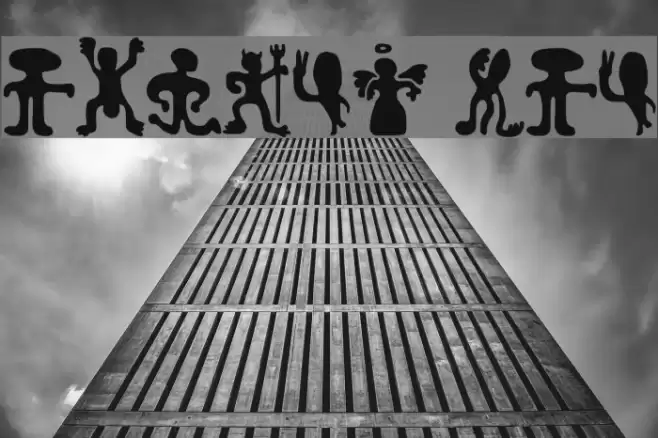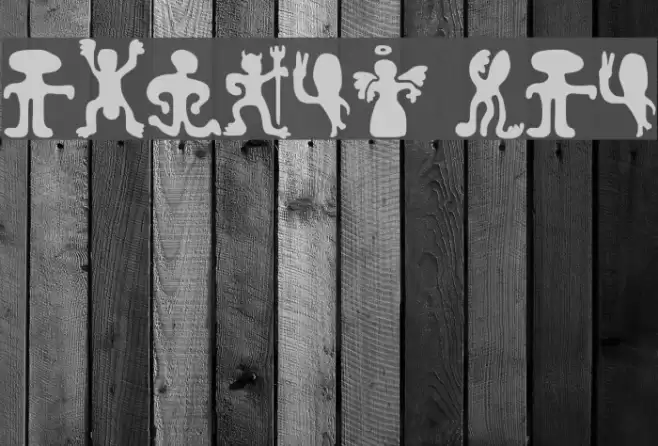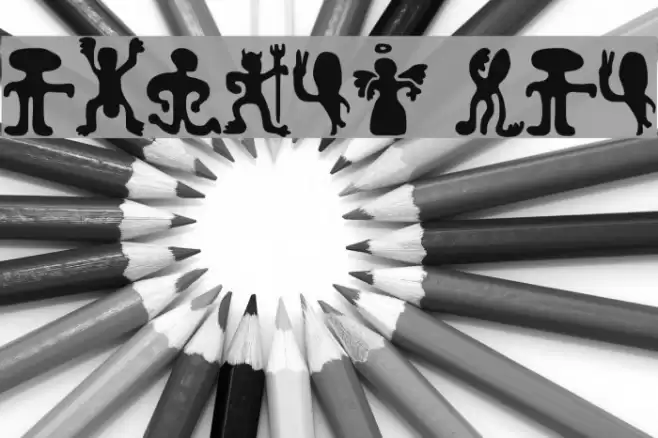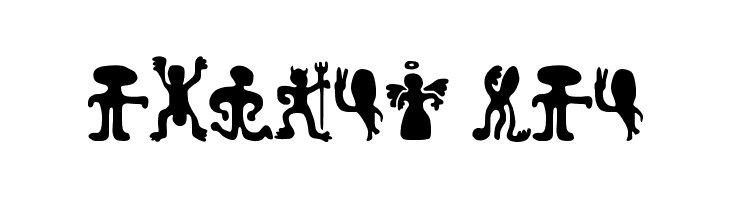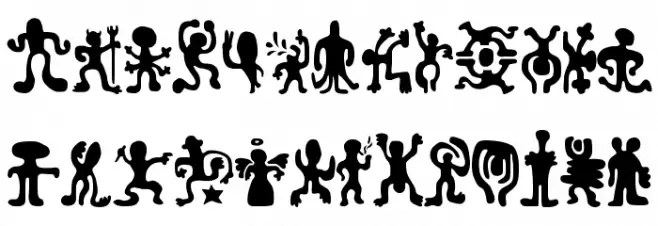
This is a highly decorative and playful font featuring abstract, cartoon-like characters and symbols. Each character is uniquely designed with exaggerated shapes and whimsical forms, creating a lively and dynamic appearance. The font includes a variety of humanoid and creature-like figures, each with distinct postures and expressions. The overall design is bold and eye-catching, making it suitable for projects that require a fun and artistic touch. The characters are densely packed, giving a sense of energy and movement. This font is perfect for creative and unconventional designs, adding a unique flair to any project.
A playful, decorative font with abstract, cartoon-like characters.
- Proposed Projects: Ideal for children's books, creative posters, party invitations, and artistic branding.
- Character Spacing: Tight
- Contrast: High
- Overall Style: Decorative
- Use Case: Logos, Posters, Creative projects